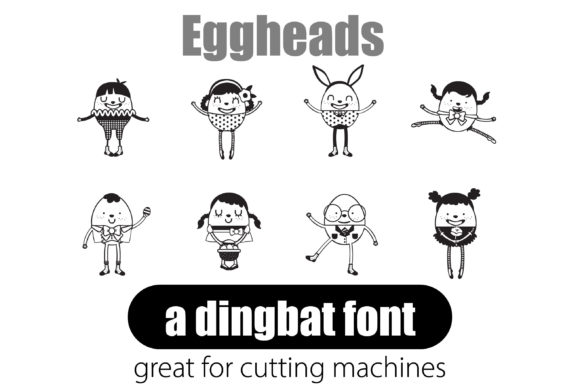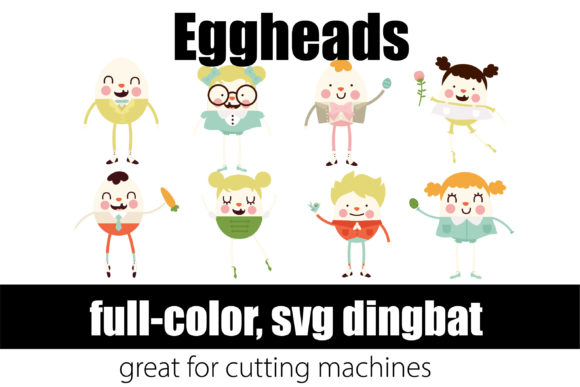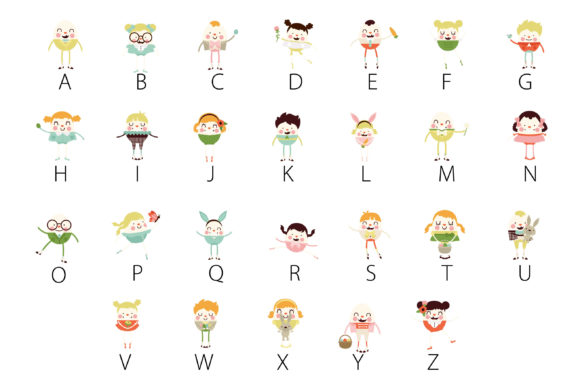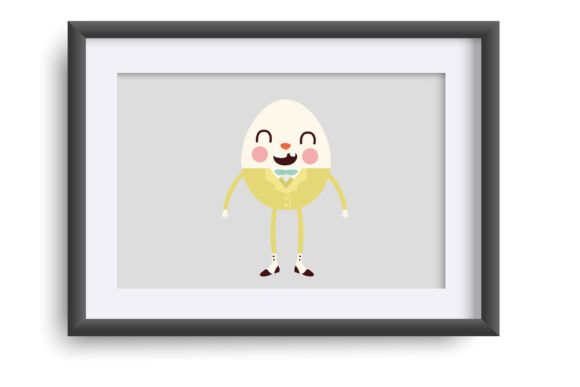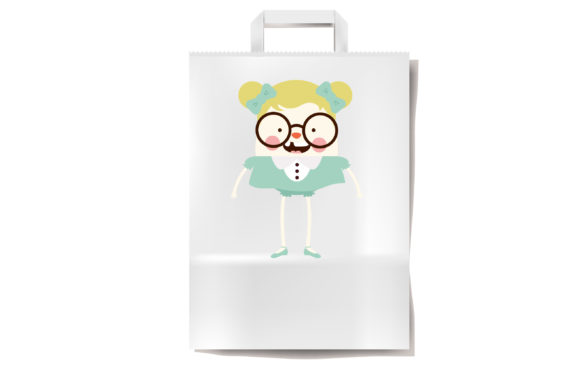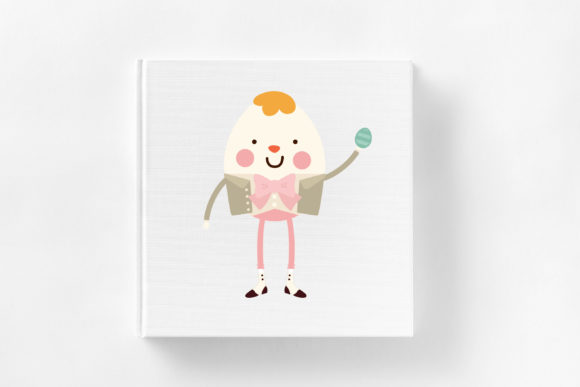
Introduction to Eggheads Font
Have you ever found yourself in the middle of a creative project, staring at a blank design space, desperately seeking the perfect visual element to bring it all together? That’s where the Eggheads Font comes in – a unique bundle of dingbat fonts that will add a playful touch to any design. This delightful font features two versions: a classic black and white dingbat of egghead people and a vibrant full-color SVG dingbat that’s perfect for vinyl and cutting machines.
Whether you’re a seasoned designer or a DIY enthusiast, the Eggheads Font is an invaluable resource that will help you elevate your creative project to the next level. With its high-quality design and transparent background, this font is perfect for adding a touch of whimsy to your designs. And the best part? It’s available for free download, making it an accessible design resource for anyone looking to add some personality to their work.
Eggheads Font Key Features
- High-quality design: The Eggheads Font is designed with precision and attention to detail, making it a valuable resource for any creative project.
- Transparent background: This font features a transparent background, allowing designers to easily layer it over other design elements.
- Unique, hand-drawn style: The Eggheads Font features a unique, hand-drawn style that adds a touch of personality to any design project.
- High-resolution design: The font is designed at a high resolution, ensuring that it looks crisp and clear even at large sizes.
- Perfect for creative projects: The Eggheads Font is ideal for use in creative projects such as logos, branding, and advertising, where a unique and eye-catching font is required.
Honest Review: Eggheads Font
As a designer, I’m always on the lookout for unique and high-quality fonts to elevate my creative projects. Recently, I had the chance to work with the Eggheads Font, and I must say it’s been a delightful experience.
- ✨ High-quality design: The Eggheads Font boasts intricate details and a clear, legible design that makes it perfect for a wide range of creative projects.
- ✨ Transparent background: The font’s transparent background makes it incredibly versatile, allowing me to easily pair it with any background image or color scheme.
While the Eggheads Font is a great addition to any designer’s toolkit, I did encounter a few limitations:
- ⚠️ Limited language support: Unfortunately, the font only supports a limited number of languages, which may be a concern for designers working on international projects.
- ⚠️ Not ideal for small text: Due to its intricate design, the Eggheads Font may not be the best choice for small text or titles.
Overall, I’m thoroughly impressed with the Eggheads Font. Its unique design, transparent background, and free download make it an excellent resource for designers working on creative projects. While it may have some limitations, I highly recommend giving it a try and seeing how it can elevate your designs.
Tips for Getting the Most Out of Eggheads Font
To get the most out of the Eggheads Font, use it on a transparent background to create a seamless design. You can also experiment with different font sizes and styles to add visual interest to your design.
The Eggheads Font is ideal for a variety of creative projects, including logos, branding materials, and social media graphics. Its unique design and high-quality texture make it a popular choice among designers and artists.